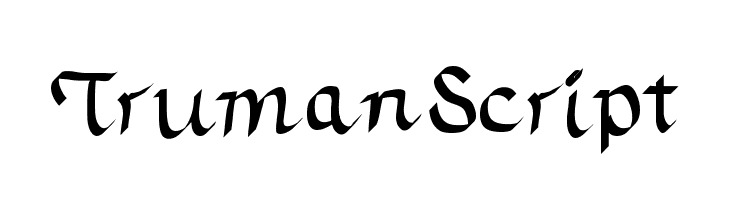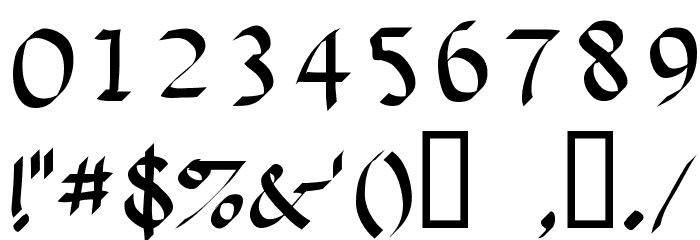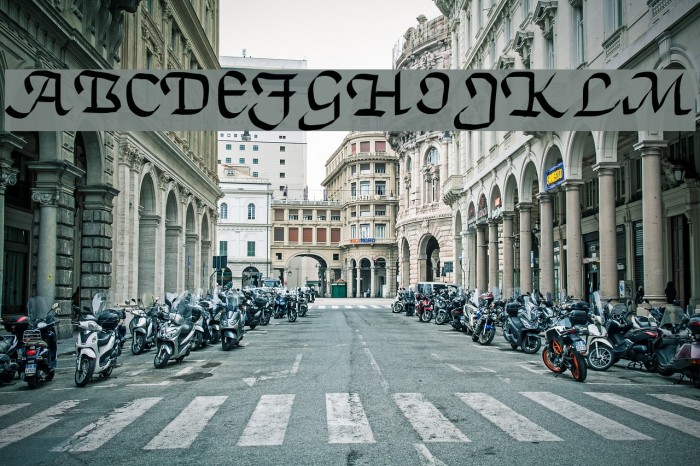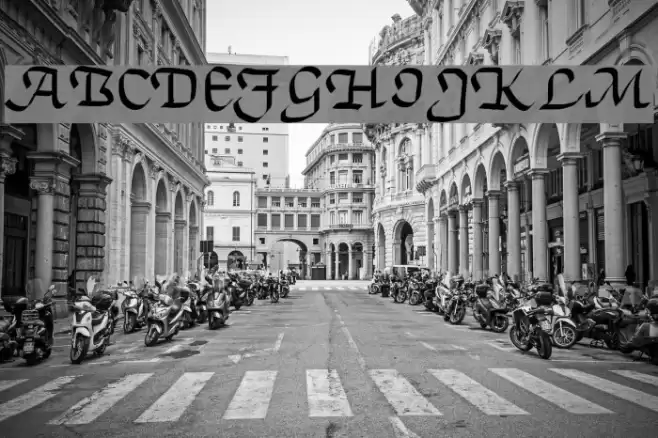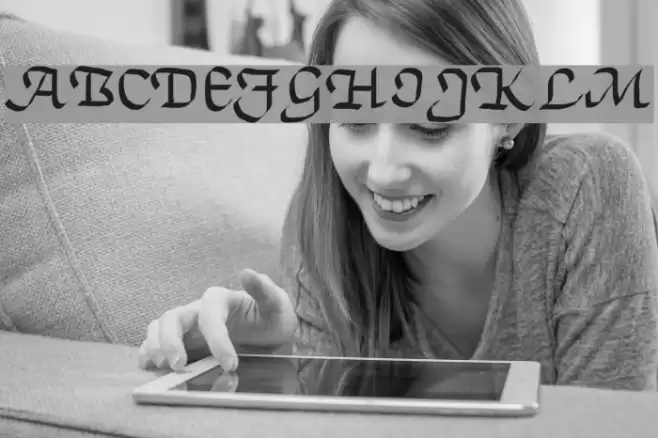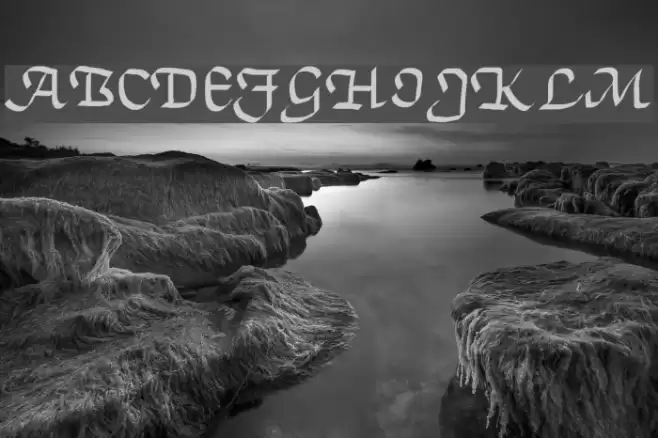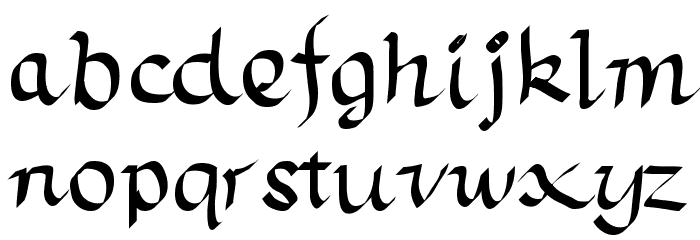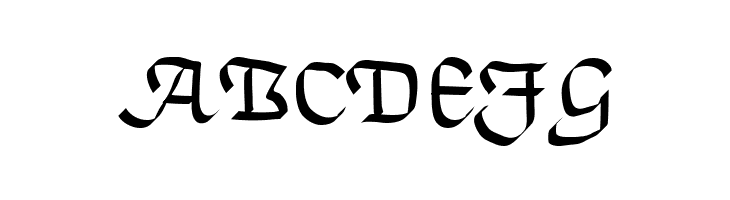
TrumanScript Font
✎ Gothic
| Категория | Gothic |
| Общий стиль | Elegant, Decorative |
| Область применения | Headlines, Invitations, Branding |
| Рекомендуемые проекты | Ideal for wedding invitations, greeting cards, elegant branding, and decorative headlines. |
TrumanScript